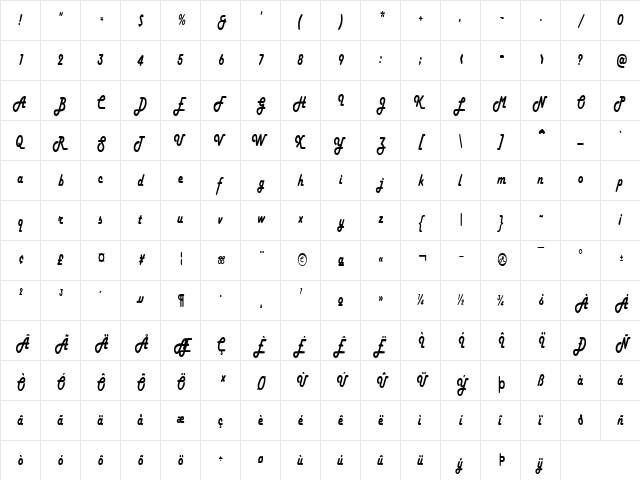
HamburgerCondensed Regular
Design Context for HamburgerCondensed Typeface
HamburgerCondensed is a composed and adaptable typeface that performs quietly and consistently across a wide range of design contexts. The condensed width makes it efficient for tight spaces without sacrificing legibility.